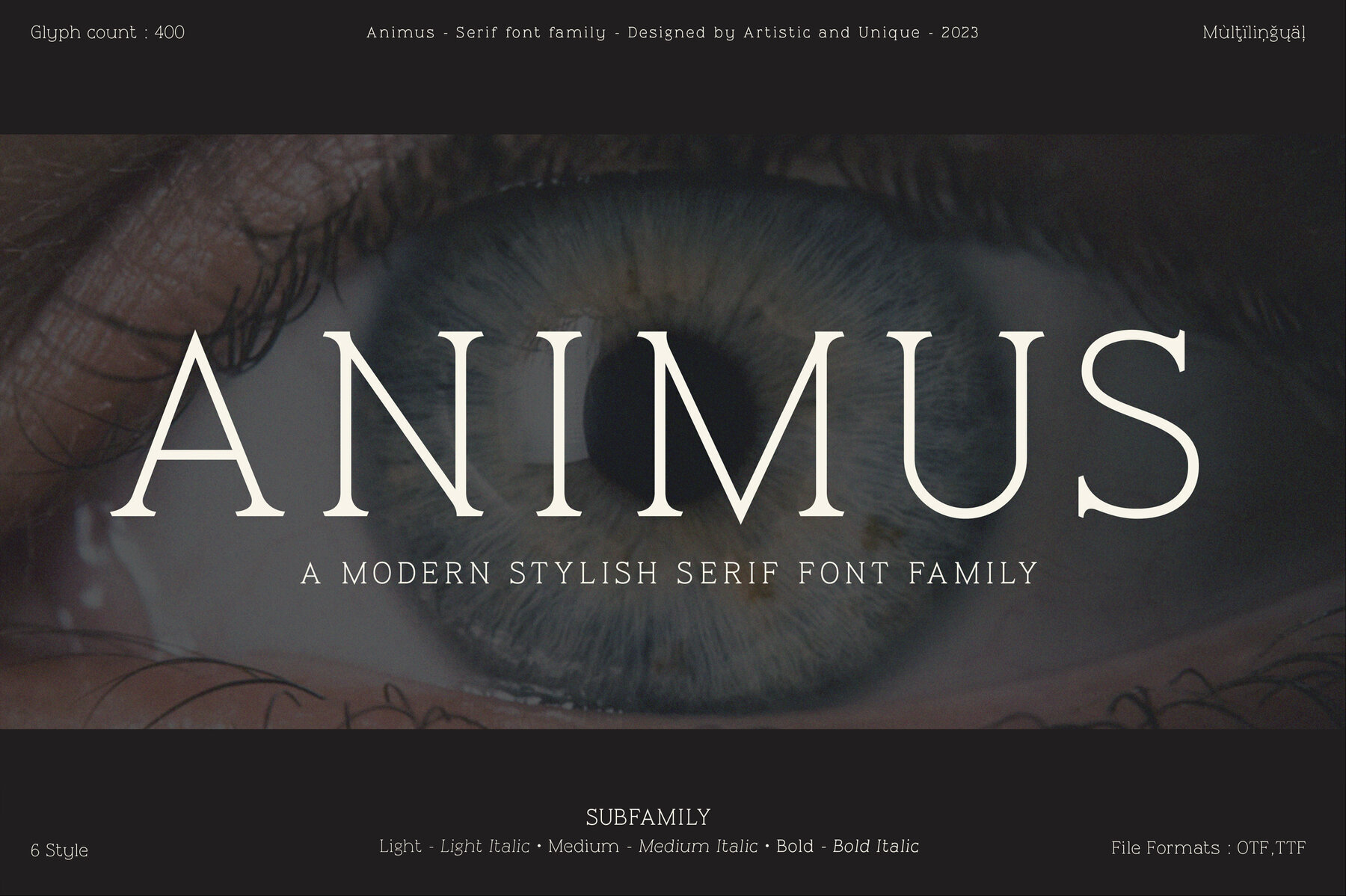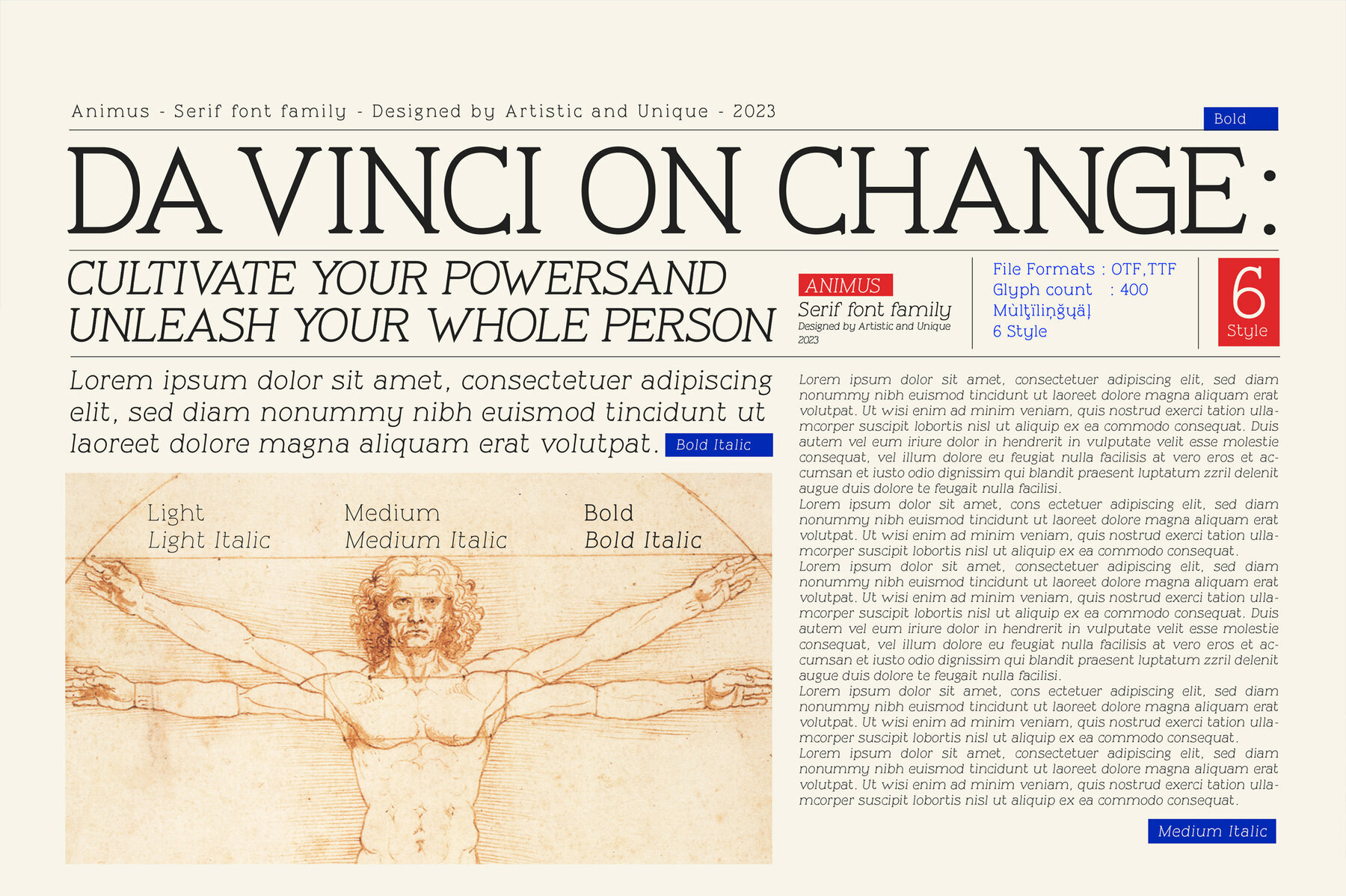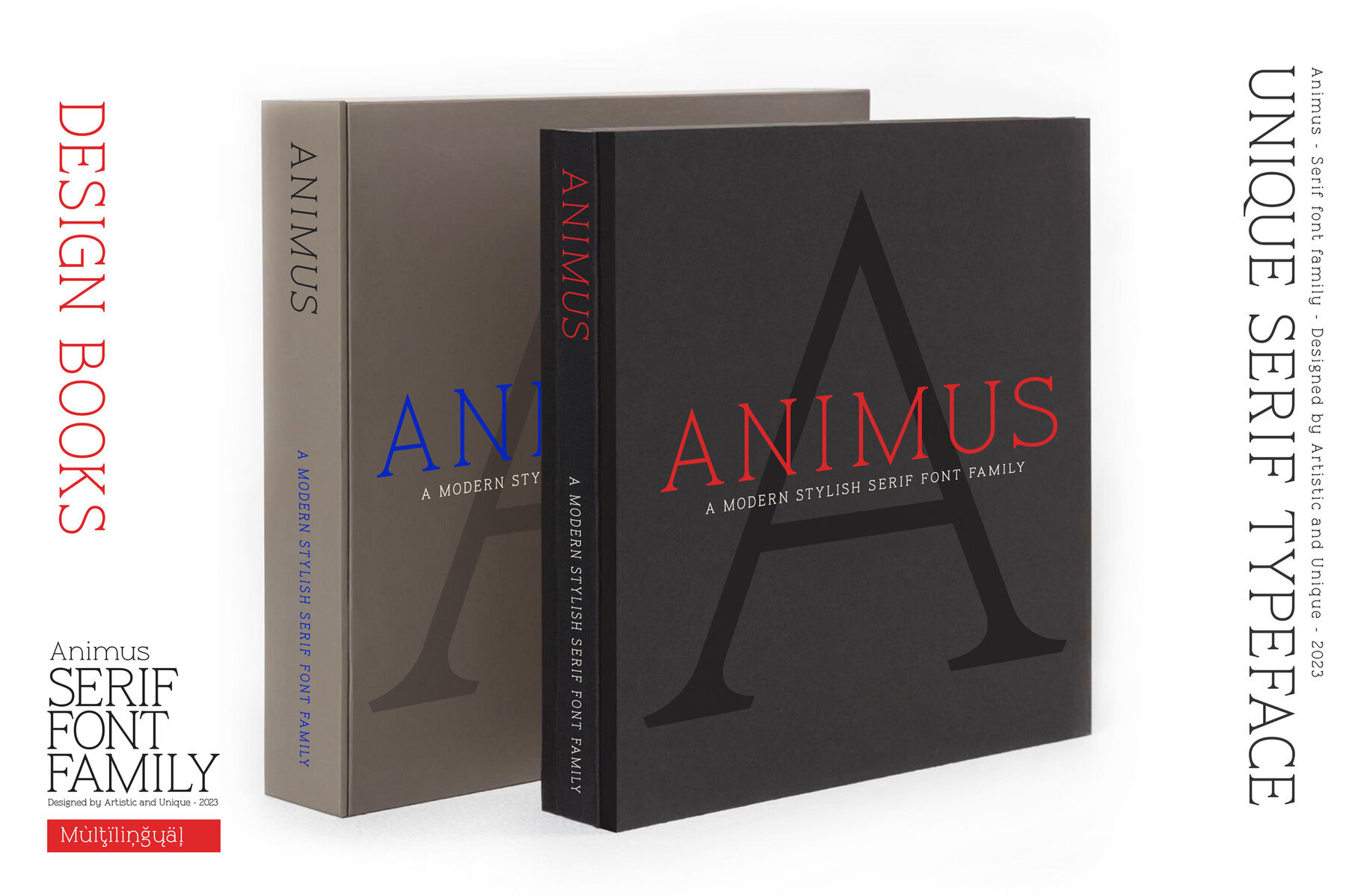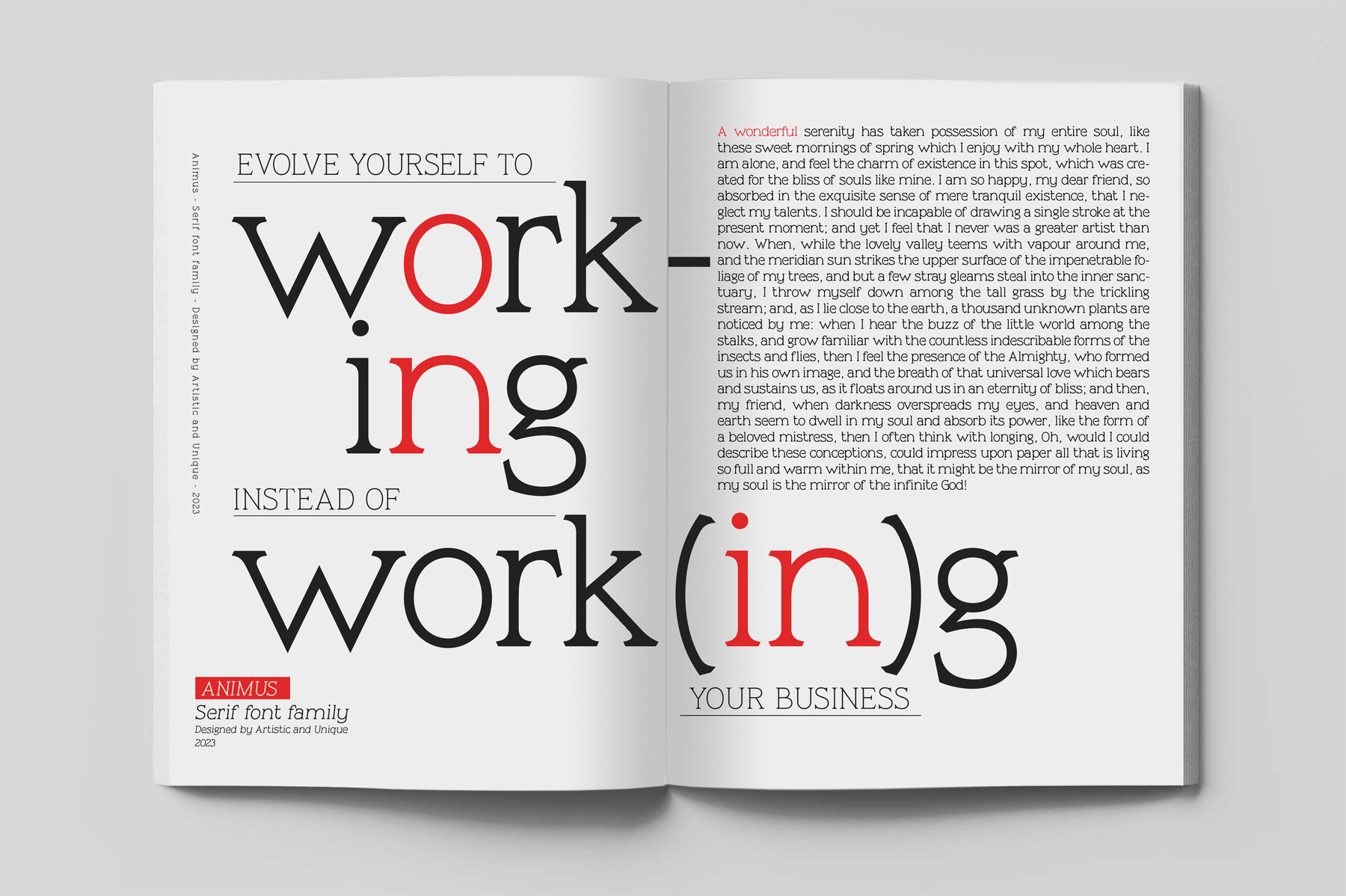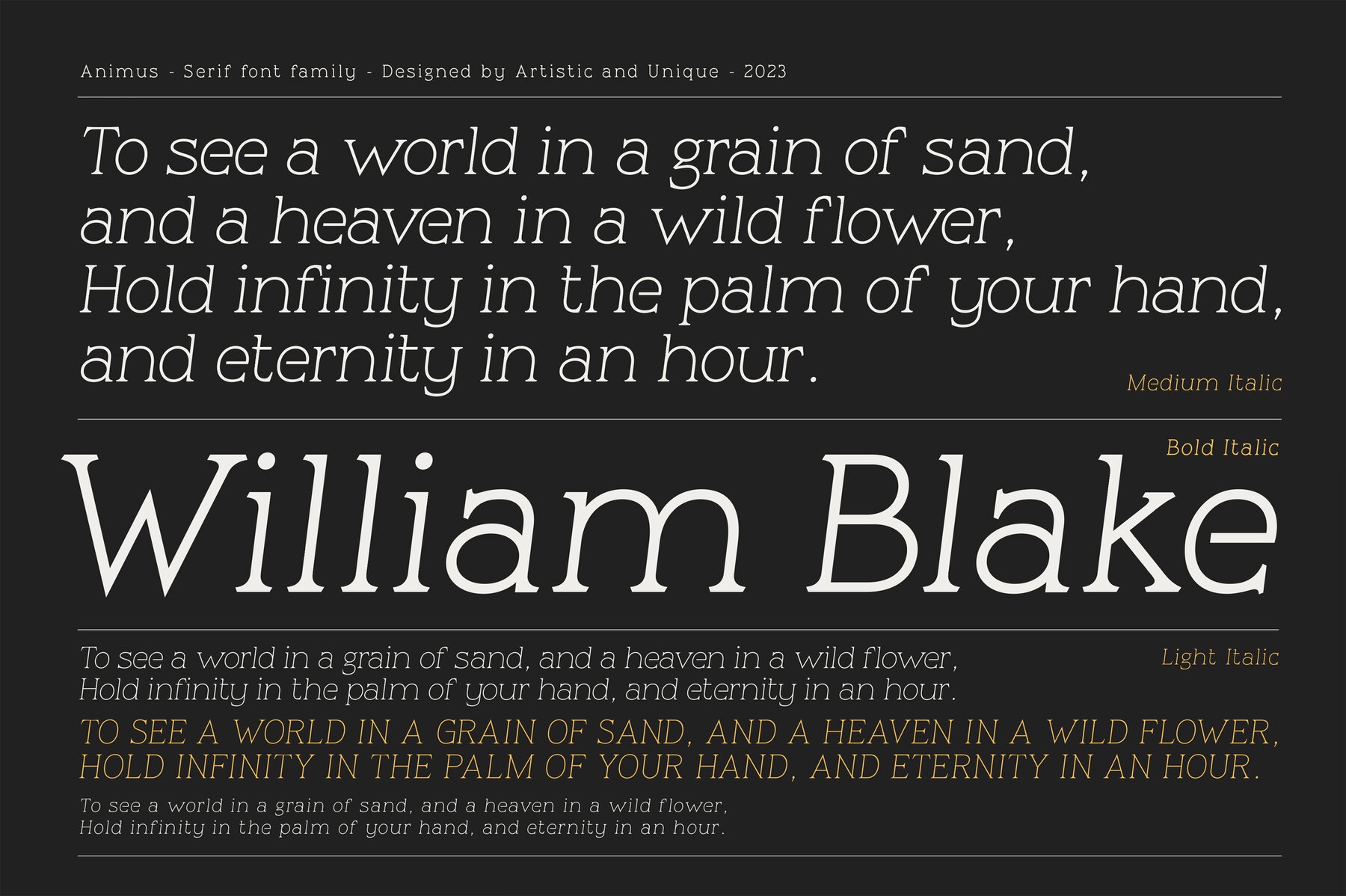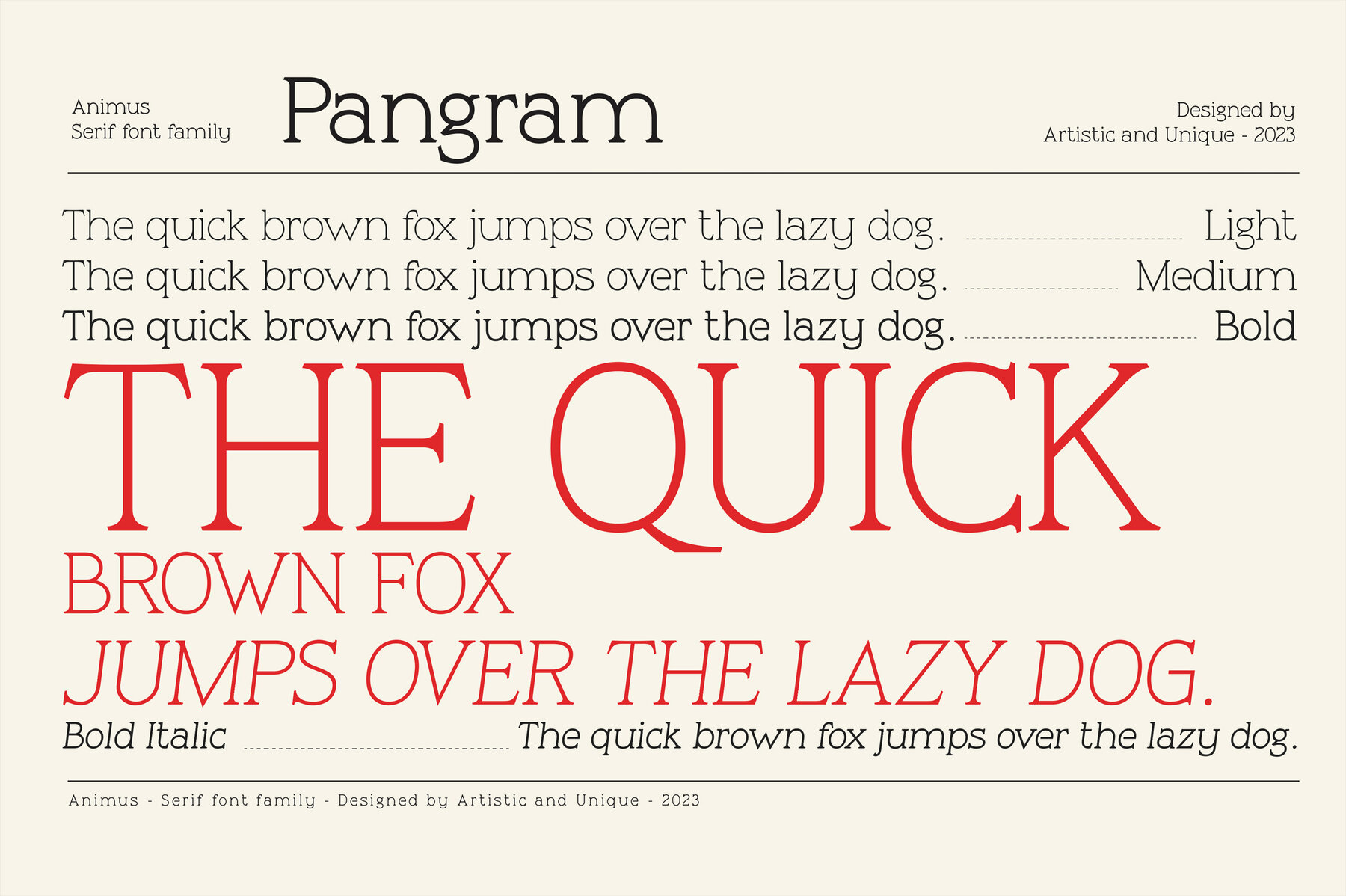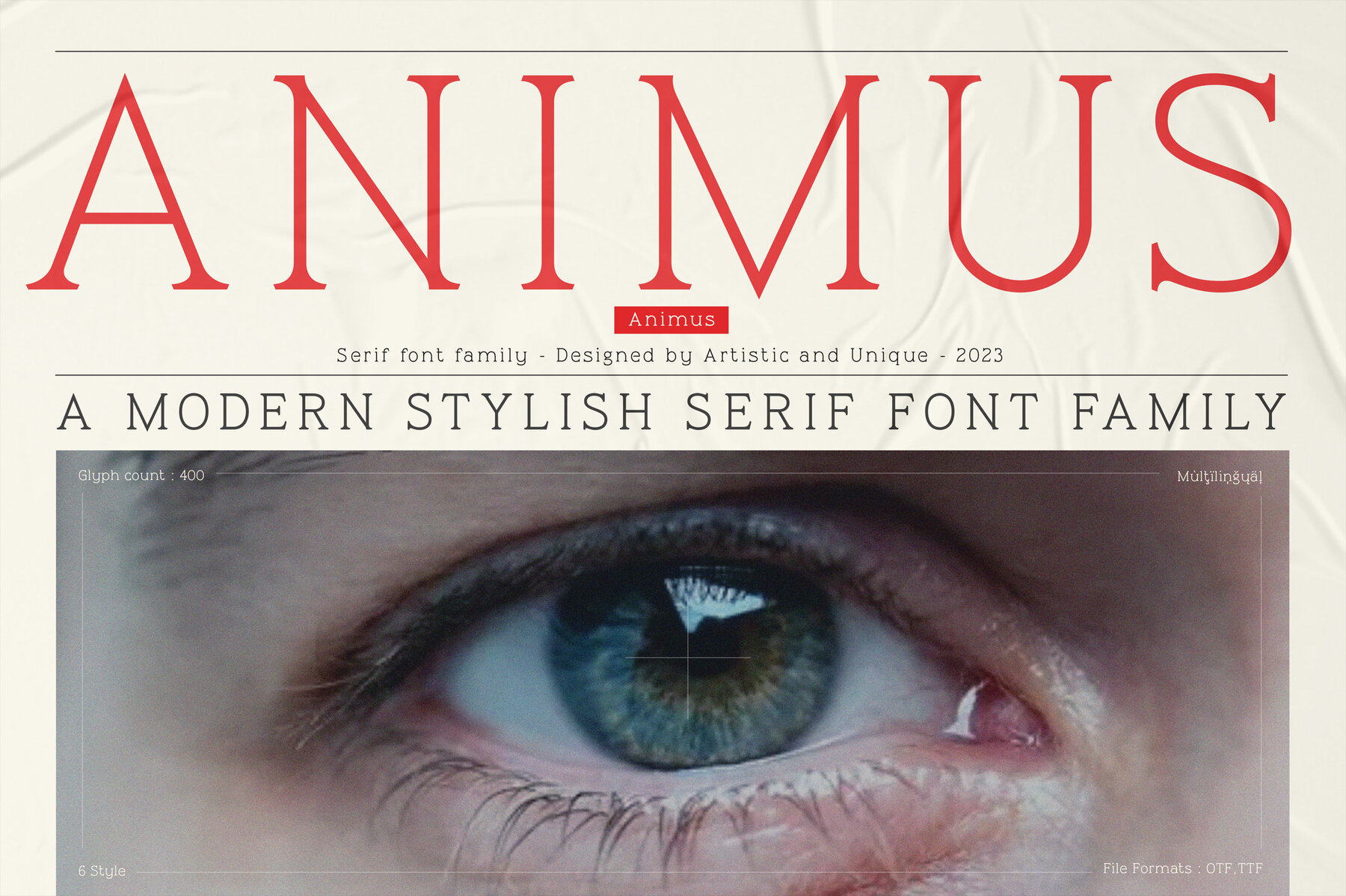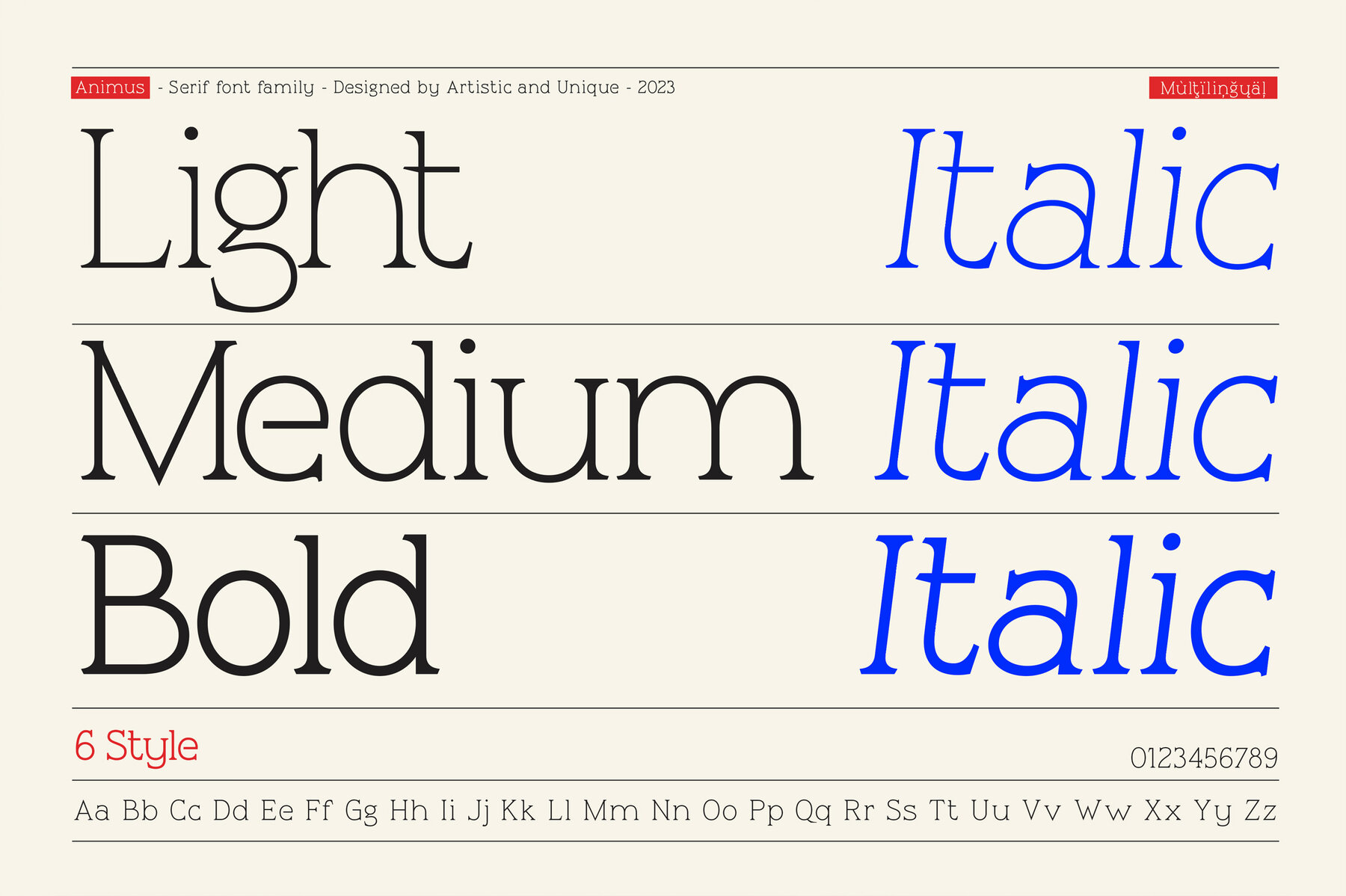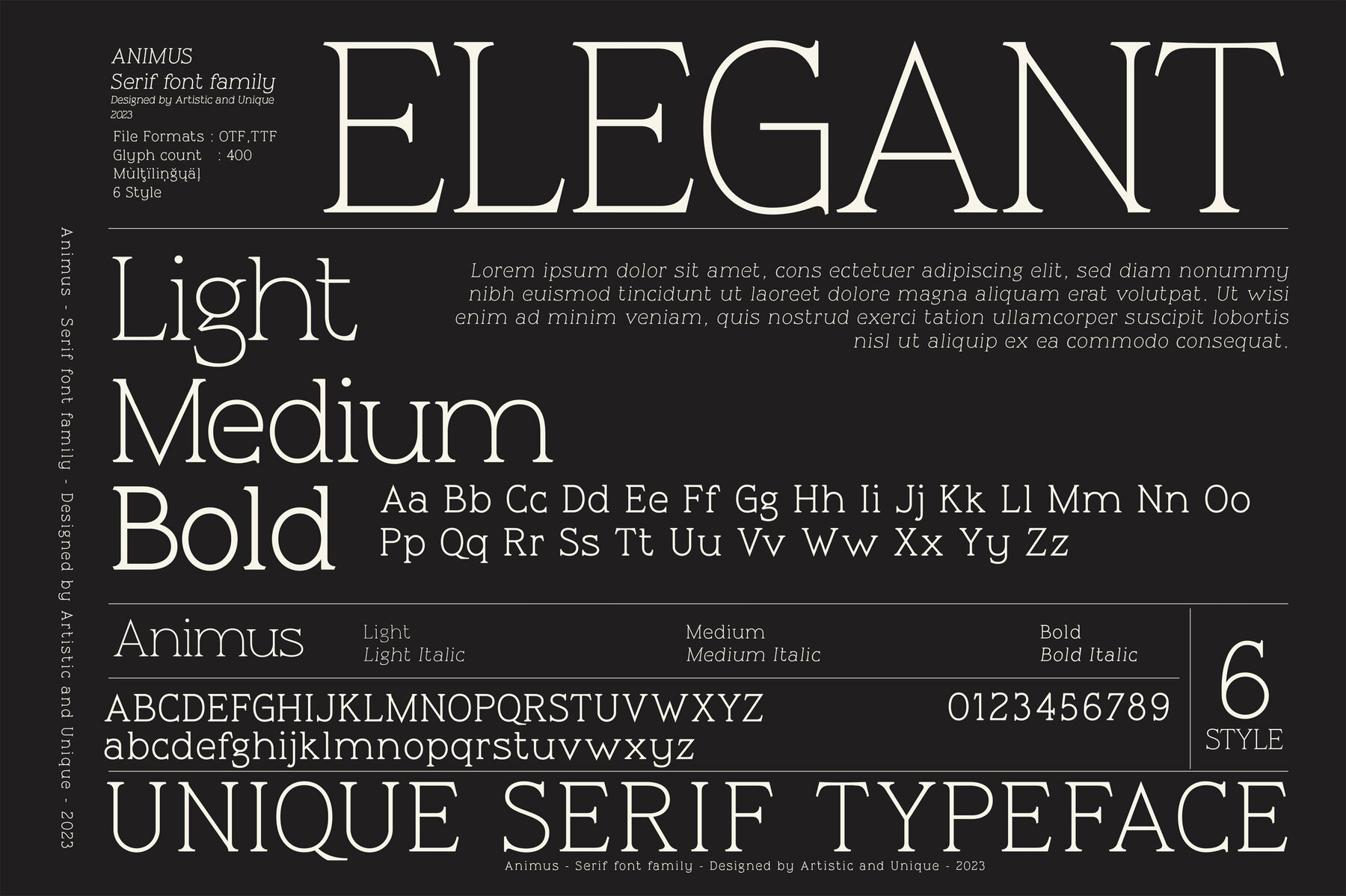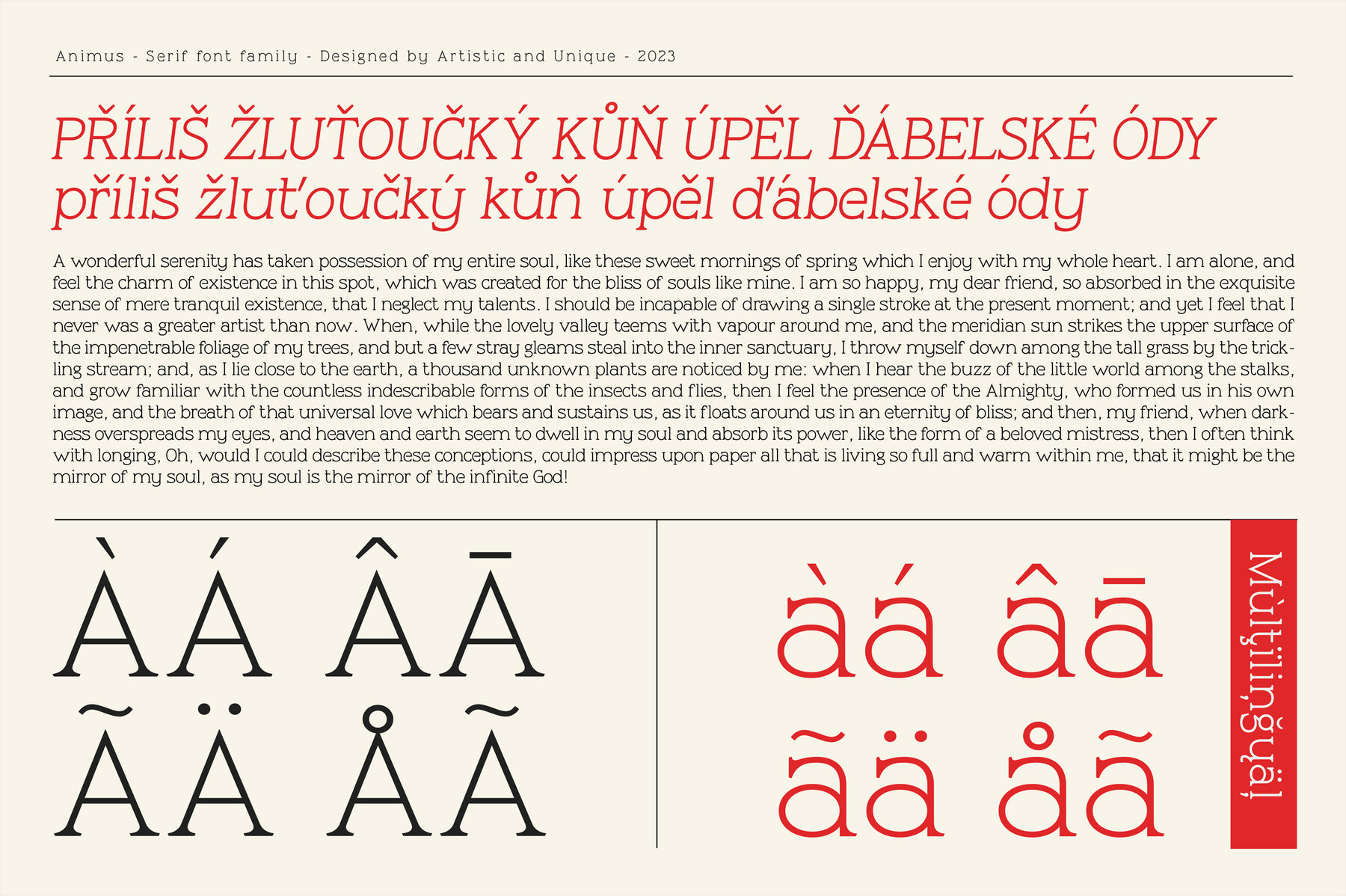
Animus Font
Animus is an elegant serif font family designed to bring versatility to your creative projects. With its aesthetic structure, it offers multilingual support and is available in six distinctive styles across three weight options. The font's refined design allows you to enhance content seamlessly, whether it's for book titles, magazine headlines, logos, or plain text. Its elegant standard characters make it a robust choice for diverse typographic compositions.
The Animus font family includes uppercase and lowercase letters, punctuation, symbols, numbers, and ligatures. It's ideal for a wide range of applications, including books, magazines, editorials, headlines, websites, packaging, logos, advertising, and movie titles. Whether your design is modern or classic, Animus provides the flexibility needed to achieve a unique aesthetic. Its adaptable nature ensures that it meets the demands of any creative endeavor, enhancing both contemporary and traditional designs.